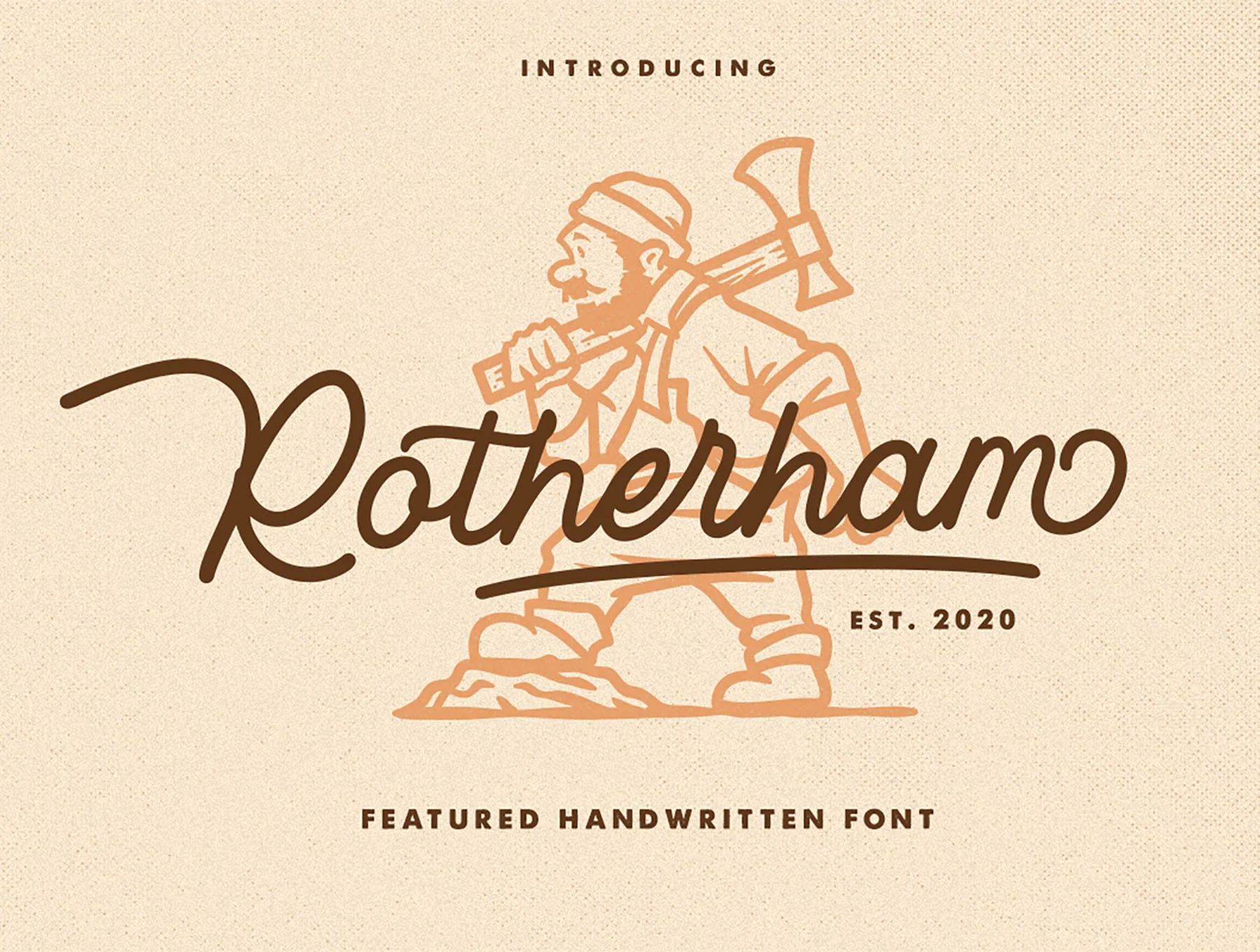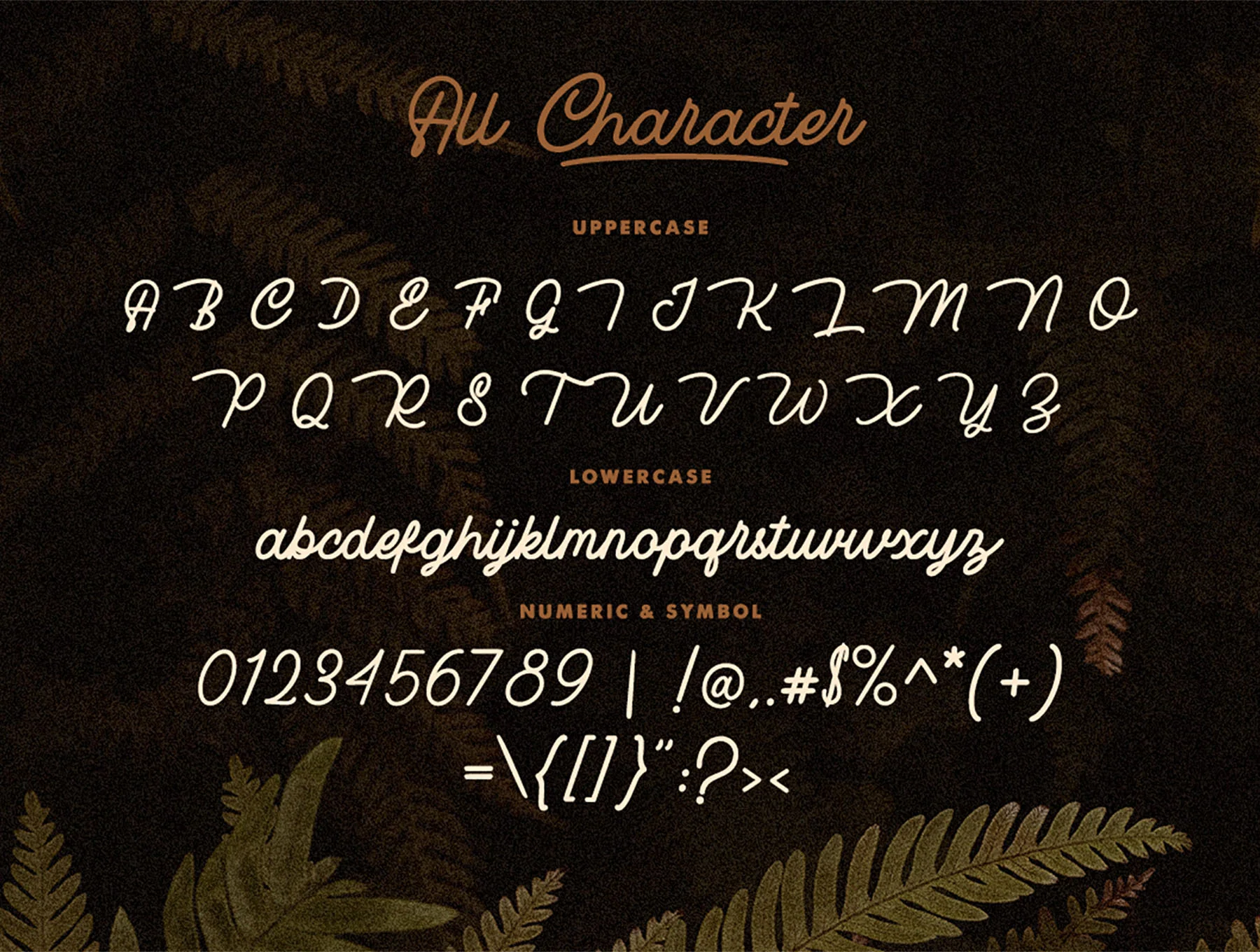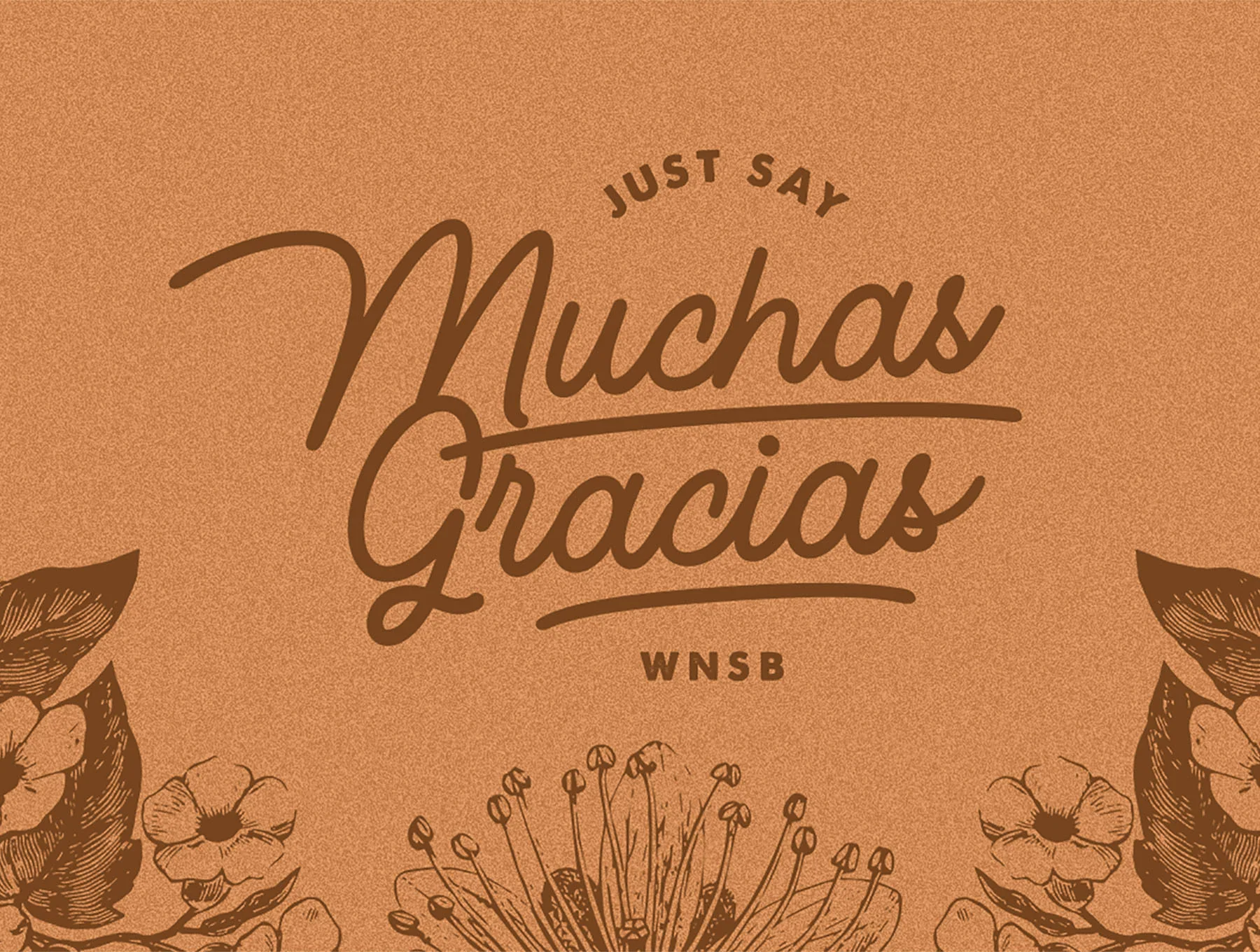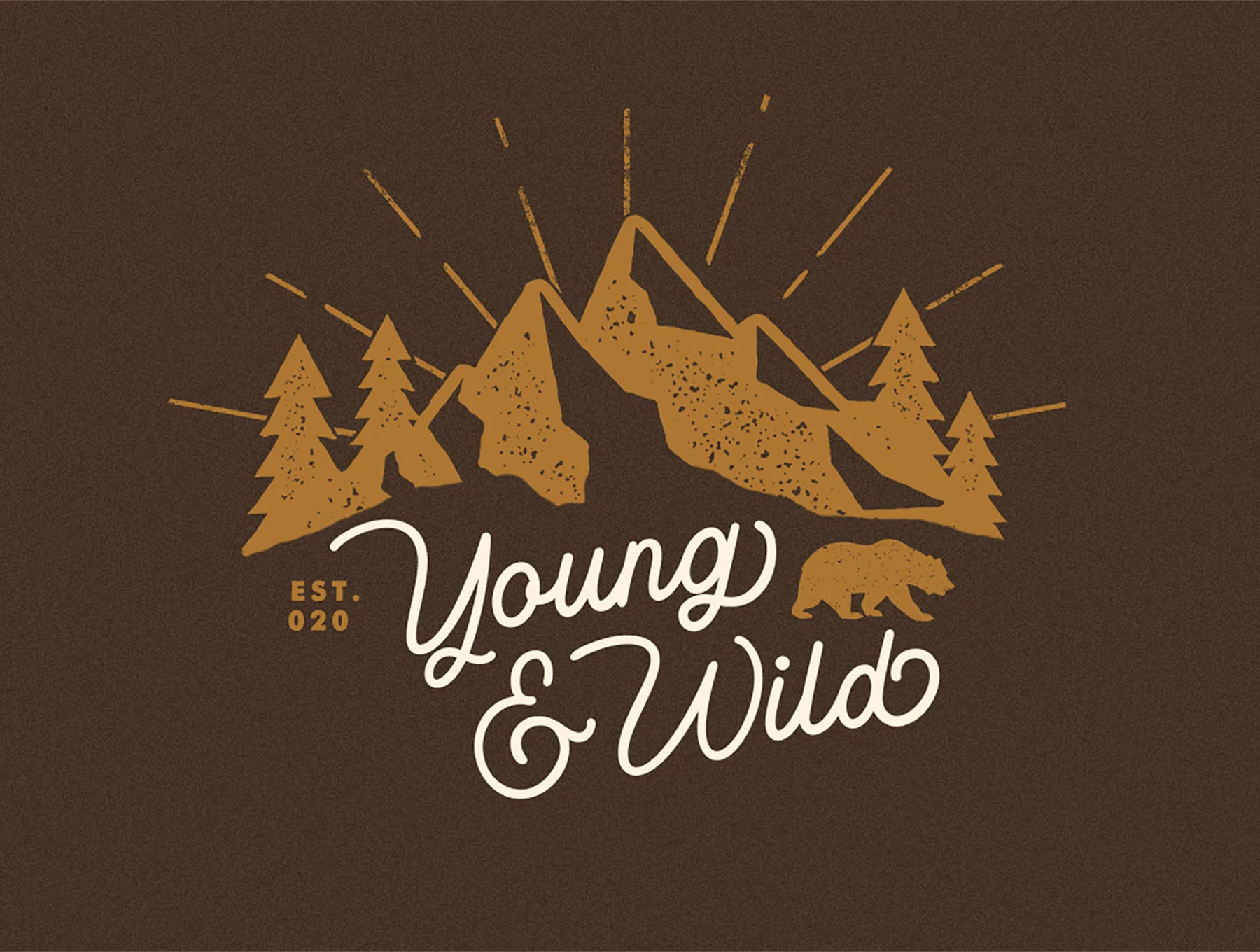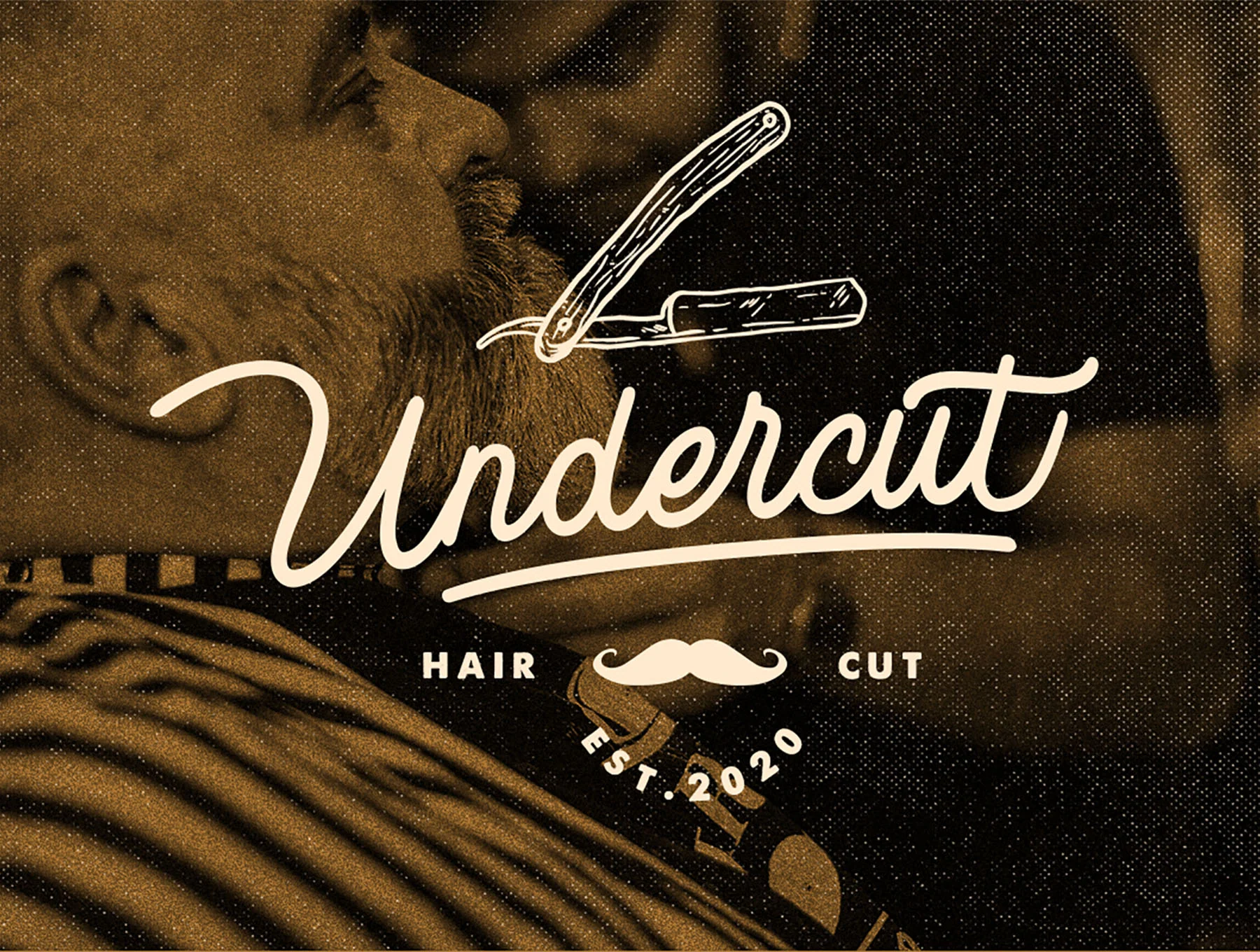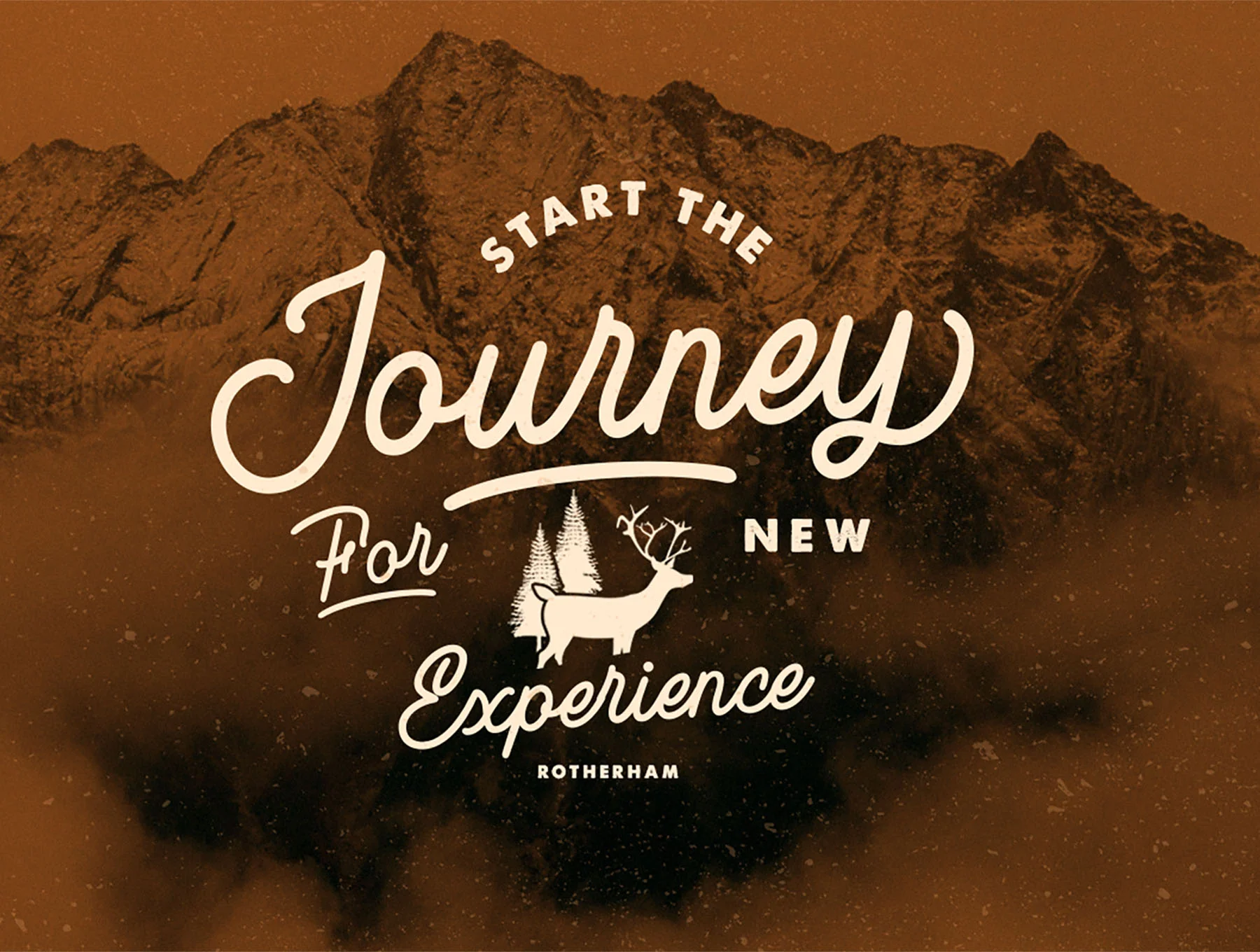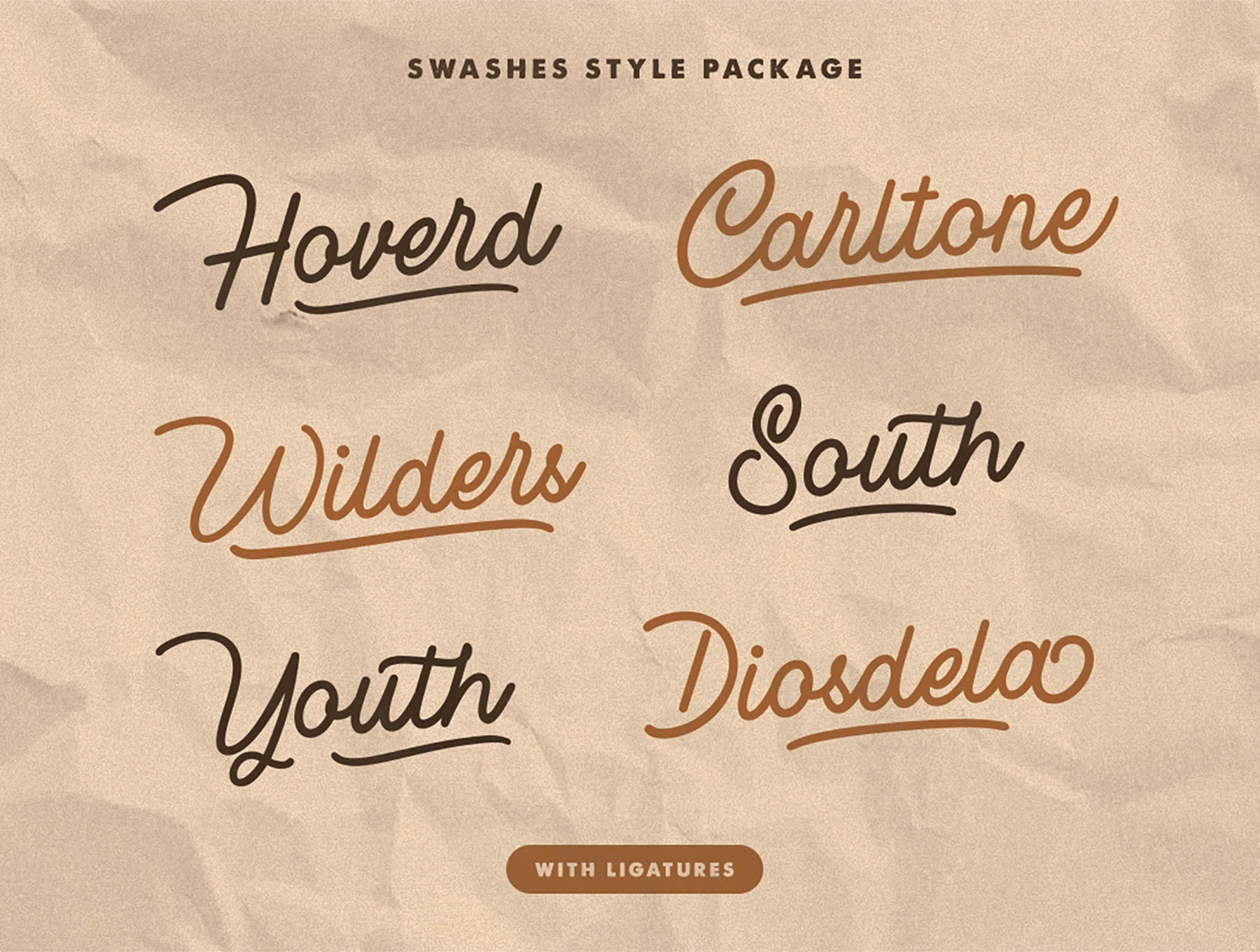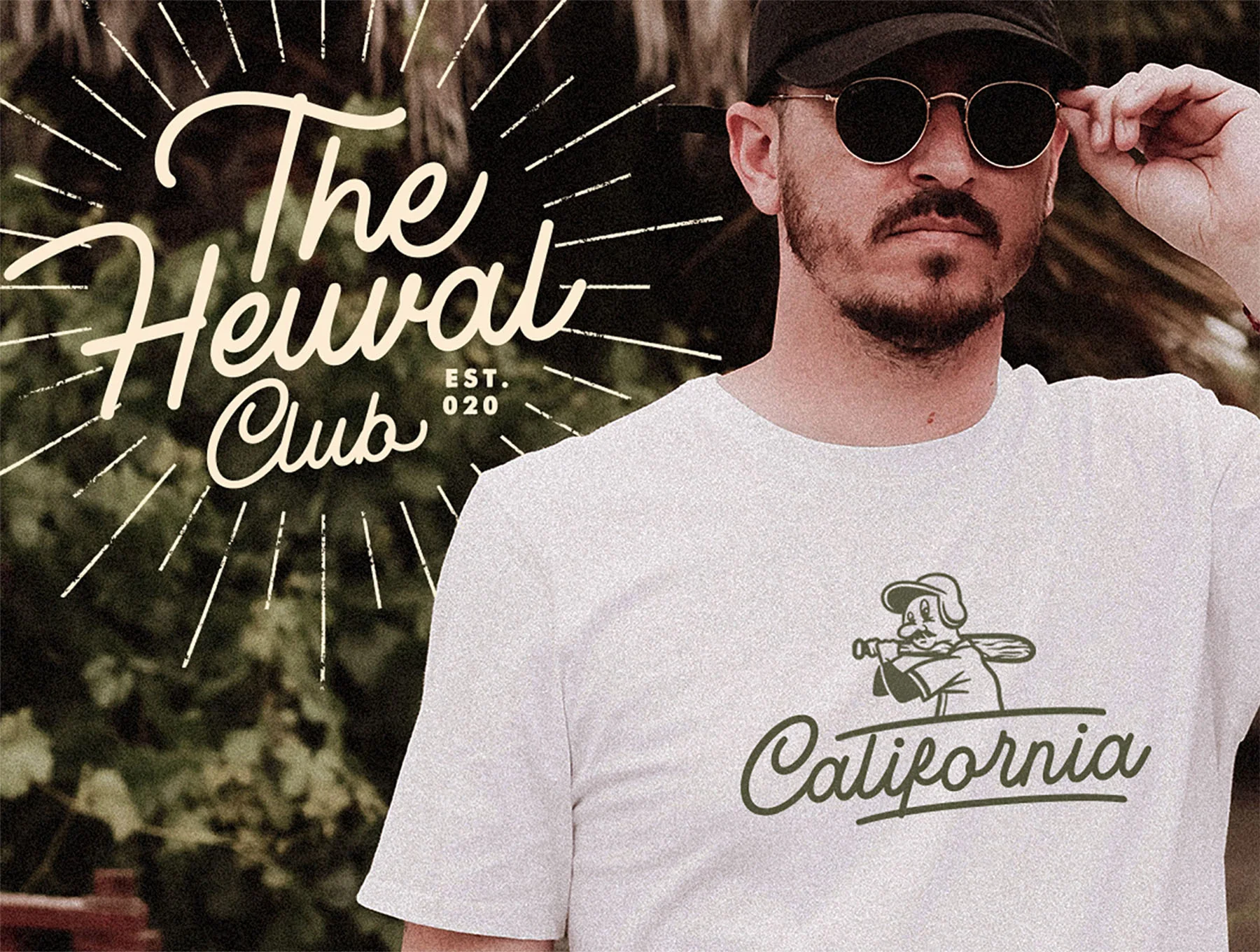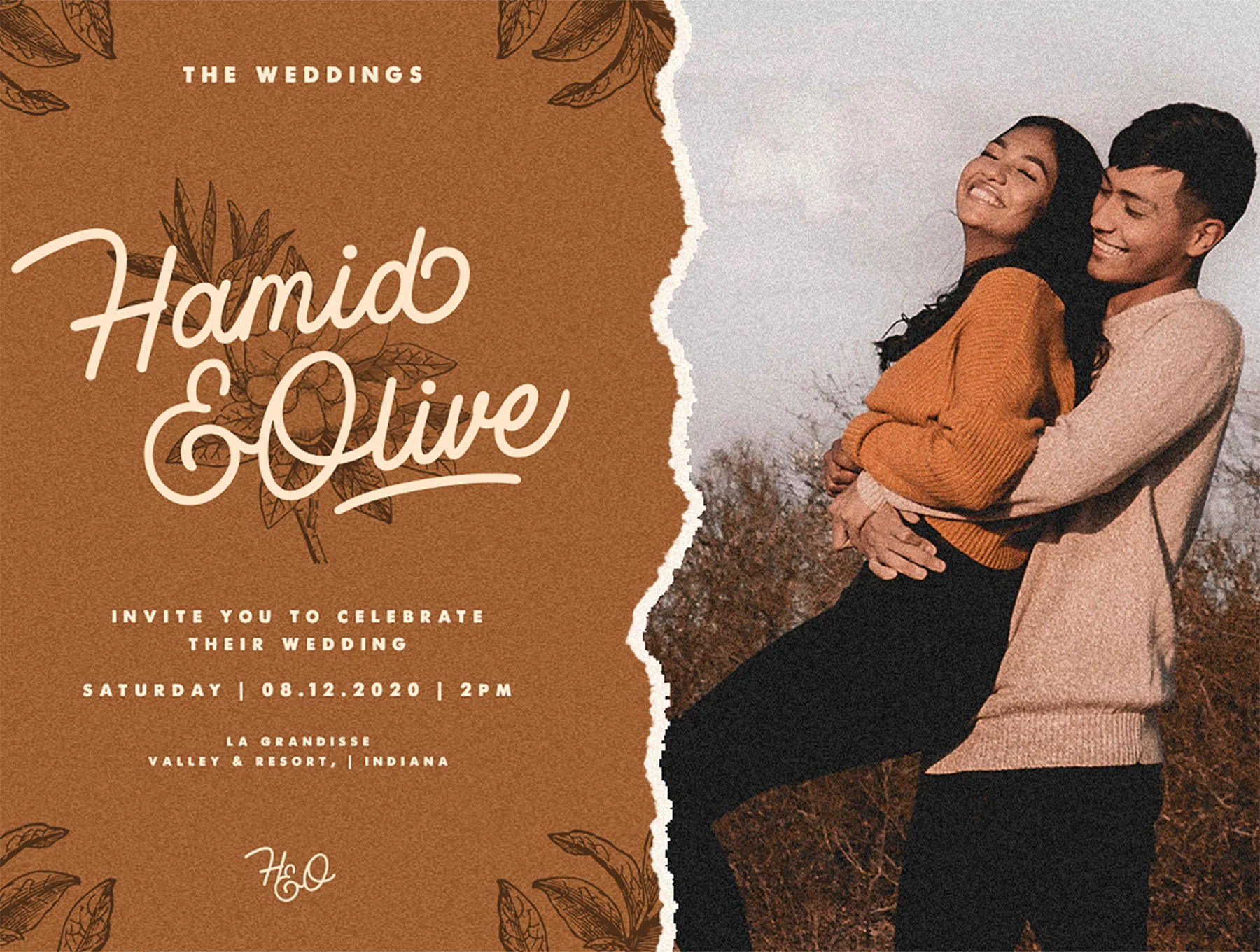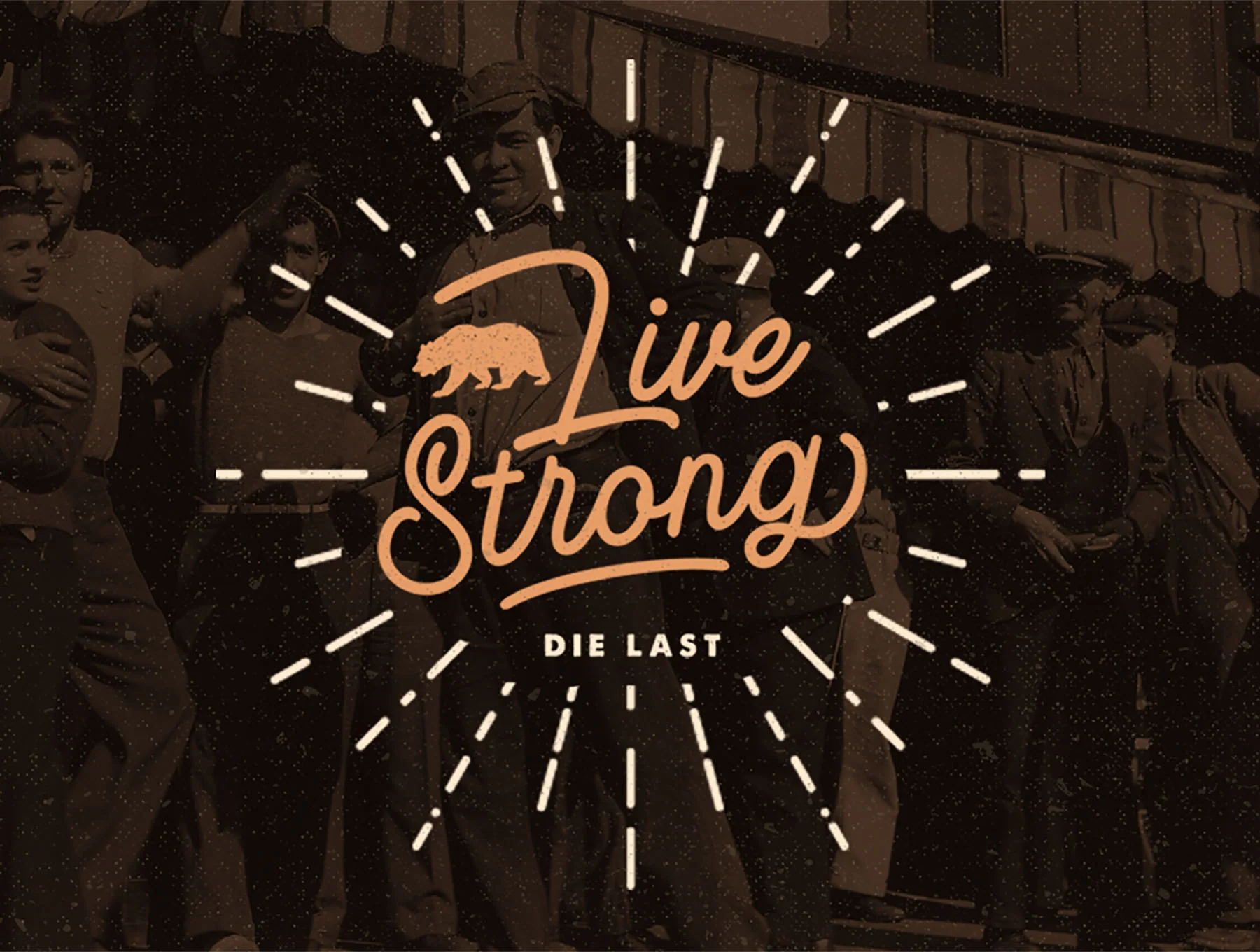
Rotherham - Script Font
Handwritten Script Font
Rotherham is a distinctive signature-style font, perfect for vintage designs, elegant branding, and beautiful creative projects. Included formats: OTF, TTF, and WOFF. If you have any questions, please get in touch; we’re glad to assist. Thank you for viewing.